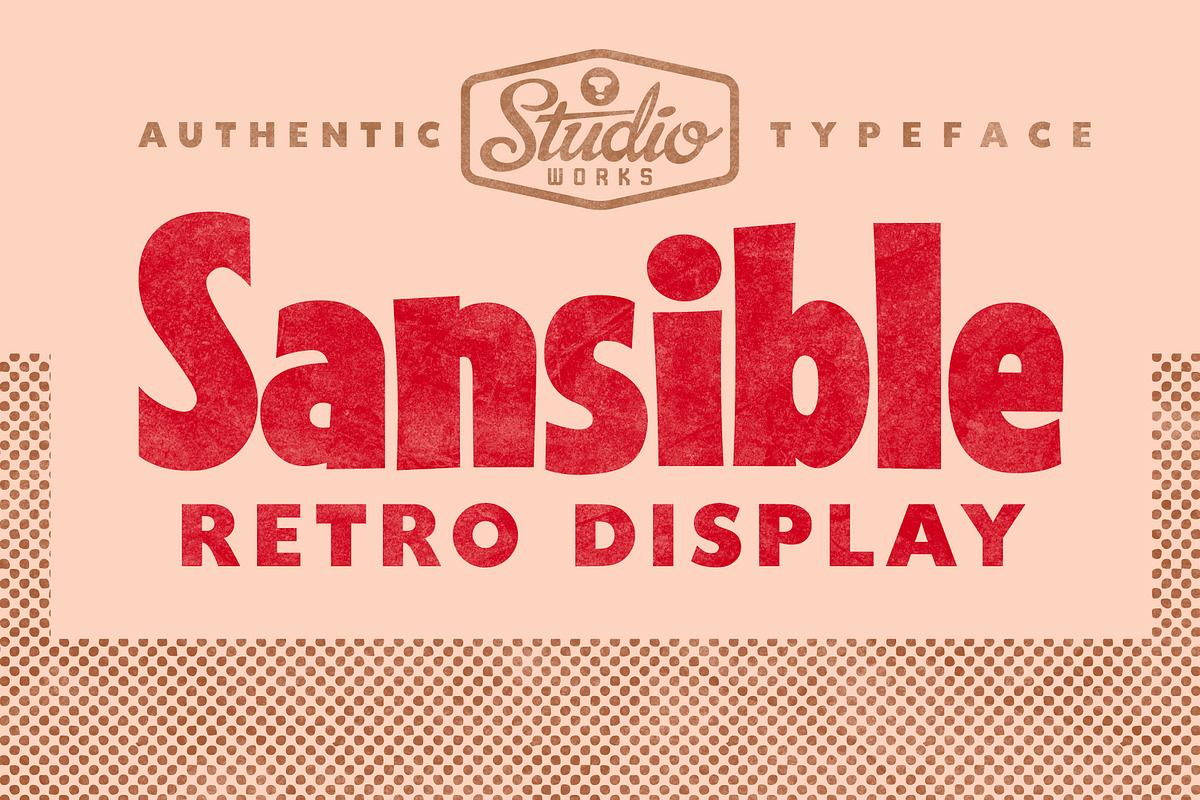
Sansible Font | Retro Display Free Download
Step back in time with Sansible Font | Retro Display Free Download. This bold, vintage-inspired typeface features geometric letterforms with a retro vibe, making it perfect for logos, branding, posters, and projects that need a nostalgic yet modern feel.
Sansible combines sharp edges with clean lines, offering a dynamic and eye-catching aesthetic for high-impact designs. It includes uppercase and lowercase letters, numerals, punctuation, and multilingual support, allowing you to explore bold, creative layouts.